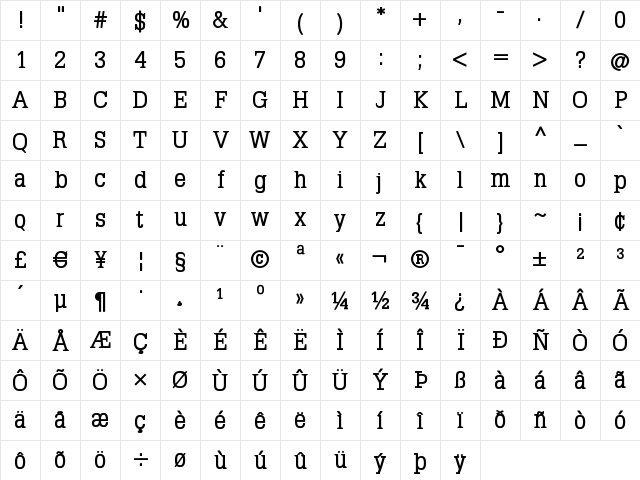
TypoLatinserif-Bold Regular Free Font
TypoLatinserif-Bold Regular
Design Context for TypoLatinserif-Bold
TypoLatinserif-Bold carries the refined structure of traditional serif typography, with bracketed terminals and considered proportions that communicate credibility and craft. Its bold stroke weight gives it real presence on the page.
Pro Tip: Use TypoLatinserif-Bold for editorial body copy and considered headline work. Pair with a neutral sans for UI elements or captions to create a classic hierarchy.